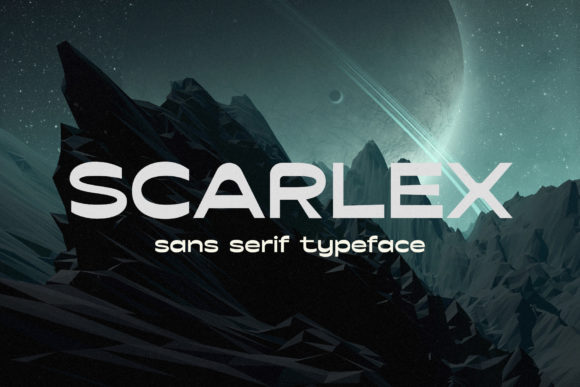
**Scarlex: The Font That Will Propel Your Designs into a Retro-Modern-Futuristic Dimension**
In a world saturated with fonts, finding one that truly captures your design vision can seem like an elusive quest. But fear not, design adventurers, for Scarlex is here to transport your creations to a realm where retro, modern, and futuristic aesthetics converge in perfect harmony.
Picture this: a font that draws inspiration from the captivating science fiction movies and books of the 1960s, an era where imagination soared and boundaries were pushed. Scarlex embodies this spirit of innovation, inviting you to infuse your designs with a touch of nostalgia while propelling them into the future.
**A Typeface Tailored to Your Creative Universe**
Whether you're crafting science research posters that demand attention or designing movie posters that promise an epic journey, Scarlex will be your steadfast companion, amplifying your message with its bold and captivating presence.
Unleash your branding labels with a font that speaks volumes, leaving an indelible mark on the minds of your audience. Let Scarlex guide your automotive type designs, transforming ordinary text into a dynamic visual symphony.
And oh, the possibilities for t-shirts! Imagine your designs adorned with Scarlex, turning everyday garments into wearable works of art. Branding, book covers, and countless other creative projects will all be elevated by the distinctive charm of this remarkable font.
**Ignite Your Imagination and Transform Your Designs**
Scarlex is not just a font; it's an invitation to embark on a creative odyssey, where your imagination runs wild and your designs take center stage. If you seek a font that will breathe life into your projects, a font that will make your designs stand out from the crowd, then Scarlex is your destined choice.
Join the ranks of creative visionaries who have embraced Scarlex, allowing their designs to transcend the ordinary and enter the realm of the extraordinary. Let Scarlex be the catalyst that ignites your creativity, propelling your designs to new heights of brilliance.
**Scarlex: The Font That Will Revolutionize Your Design Paradigm**
Scarlex is more than just a font; it's a gateway to a world of design possibilities. It's a font that will transform your creative process, empowering you to craft designs that resonate with your audience on a profound level.
Experience the magic of Scarlex today, and watch as your designs undergo a remarkable metamorphosis. Let Scarlex be your guide, your muse, your partner in creativity, as you embark on a journey of design excellence.